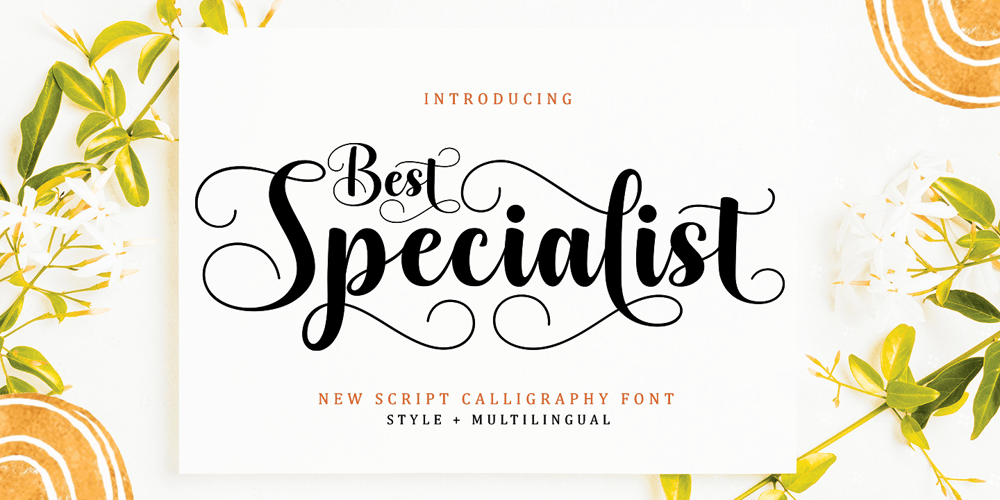
Best Specialist Font Family was designed by Muhammad Nazar and published by Bungletter. Best Specialist contains 1 styles and family package options. Balegad Script Font is a very classic, elegant and unique script font. Expertly designed to become a true favorite, this font has the potential to take your creative ideas to the highest level!Contains full set:-Uppercase-Lowercase-Alternative- Ligatures- Punctuation-Number- Multilingual support.Need help or have questions let me know. I’m happy to help.Thank you & Congratulations on the Design.